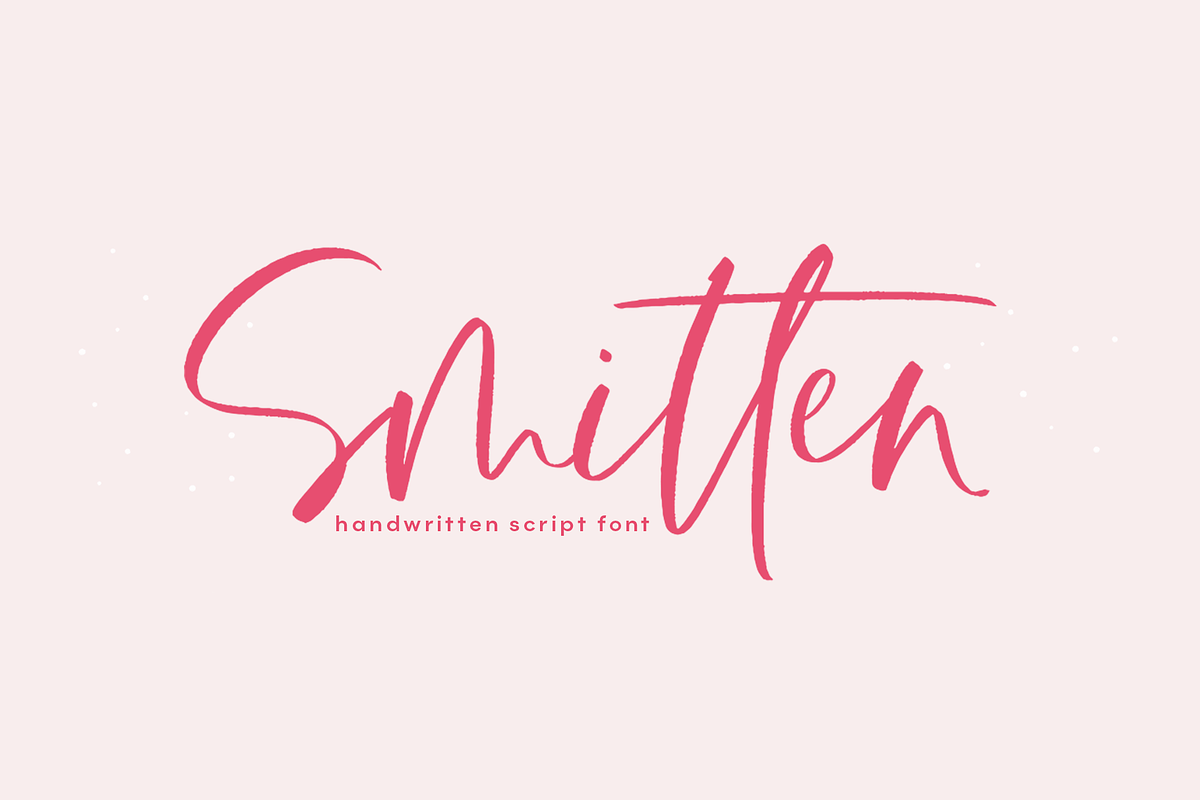
Smitten | Handwritten Script Font Free Download is a charming and romantic typeface that captures the essence of genuine handwriting. With its flowing strokes and soft, playful curves, Smitten is perfect for wedding invitations, love notes, branding, social media posts, and product packaging that needs a heartfelt touch.
Its natural rhythm and graceful style make every word feel warm, personal, and full of emotion. Whether you're designing for lifestyle blogs, feminine brands, or handwritten quotes, Smitten adds personality and elegance with ease.
Designers love Smitten for its authenticity and versatility across both print and digital projects. Want to give your designs a handwritten look that’s sweet and stylish? Download Smitten | Handwritten Script Font Free Download and fall in love with your typography all over again.